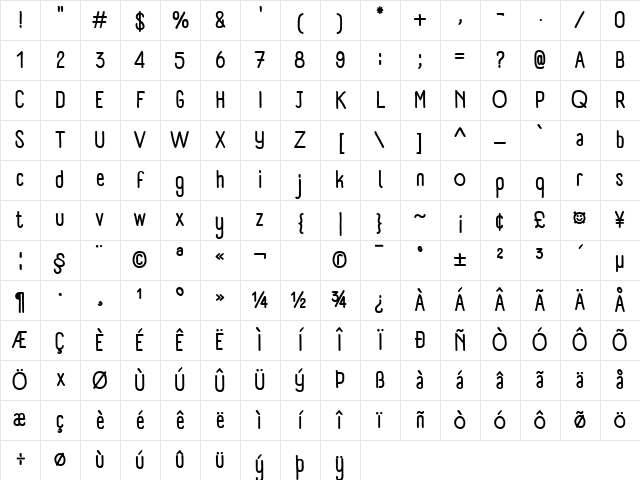
Panforte Condensed Regular Free Font
Panforte Condensed Regular
Style: Condensed Regular
Foundry: Studio Kmzero
Designer: Debora Manetti
Complete Panforte Condensed Regular glyph index. Displaying only characters natively supported by Panforte Condensed Regular font.
Design Context for Panforte
Panforte is a composed and adaptable typeface that performs quietly and consistently across a wide range of design contexts. Its narrow stance lets it pack a punch even in space-constrained designs.
Who designed the Panforte Condensed Regular font?